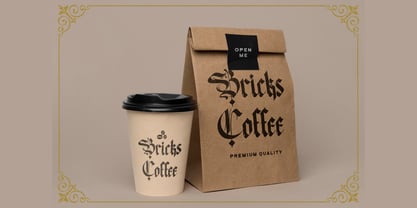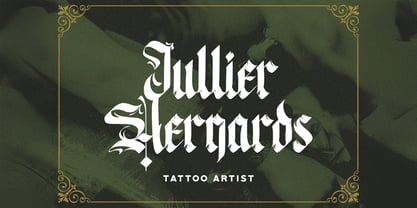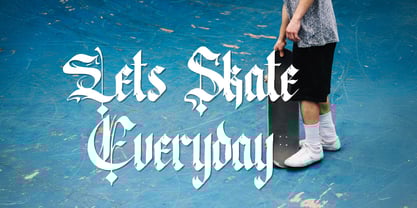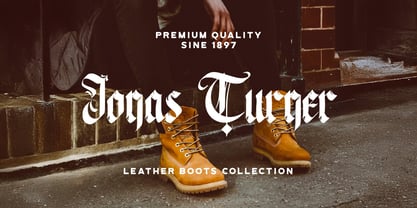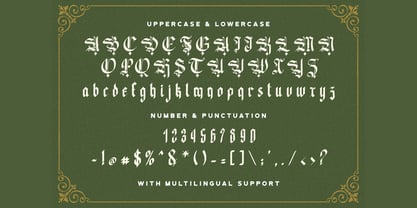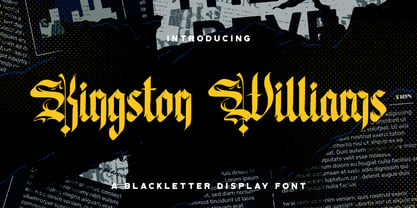
Kingston Williams
by Stringlabs Creative Studio
The Kingston Williams Font Family was designed by Virgiawan Listanto and published by Stringlabs Creative Studio. Kingston Williams contains 1 styles. More about this family
Kingston Williams is a bold blackletter font that blends medieval Gothic traditions with a modern edge. Its sharp strokes, dramatic curves, and intricate details create a powerful and timeless aesthetic. Perfect for logos, apparel, posters, tattoos, book covers, and music artwork, this font delivers strength and character to your designs. With Kingston Williams, every project gains an authentic Gothic flair and a striking visual impact that demands attention.
Designers: Virgiawan Listanto
Current Foundry: Stringlabs Creative Studio